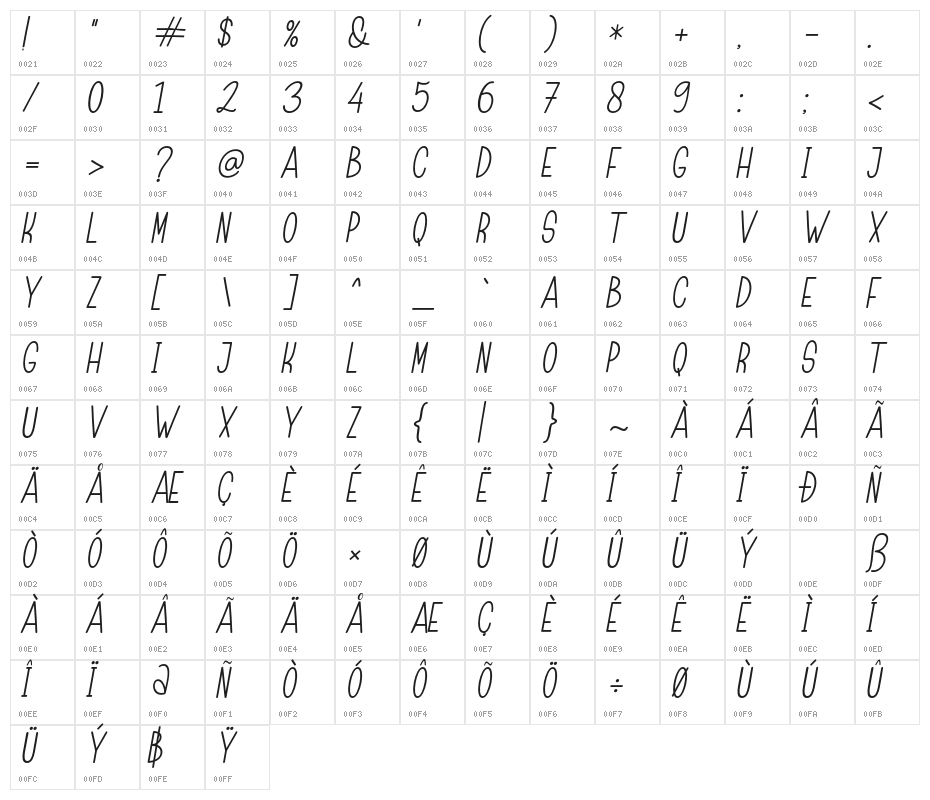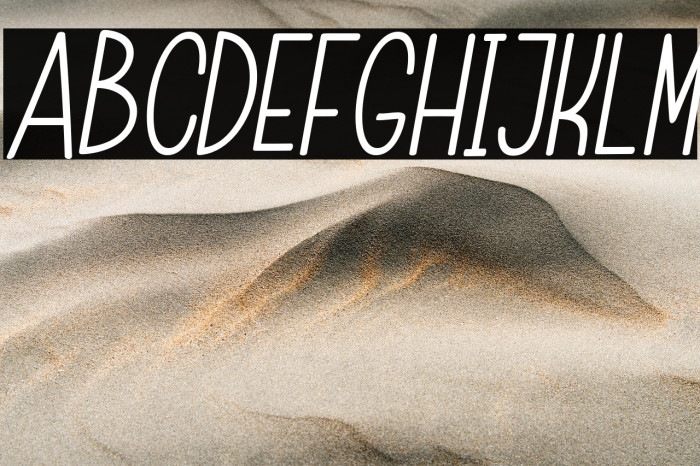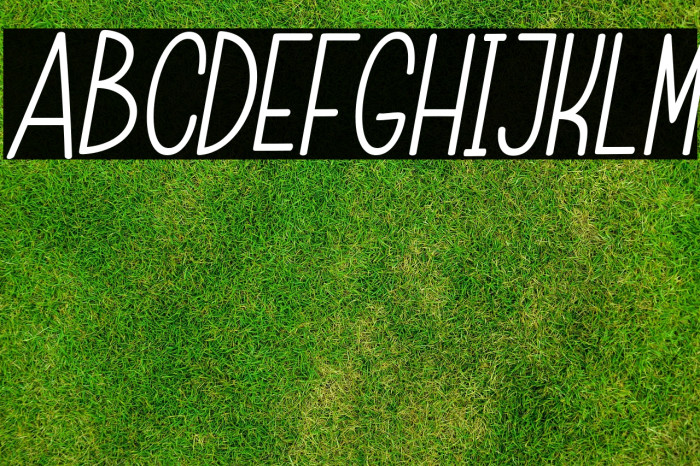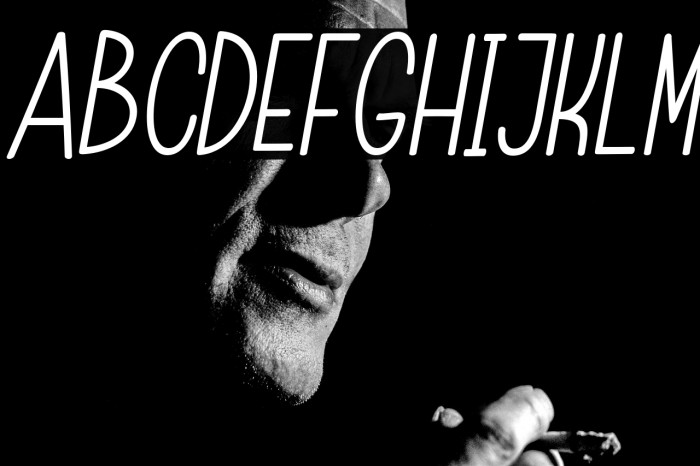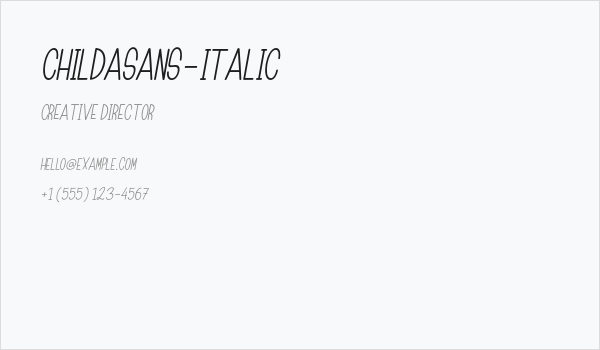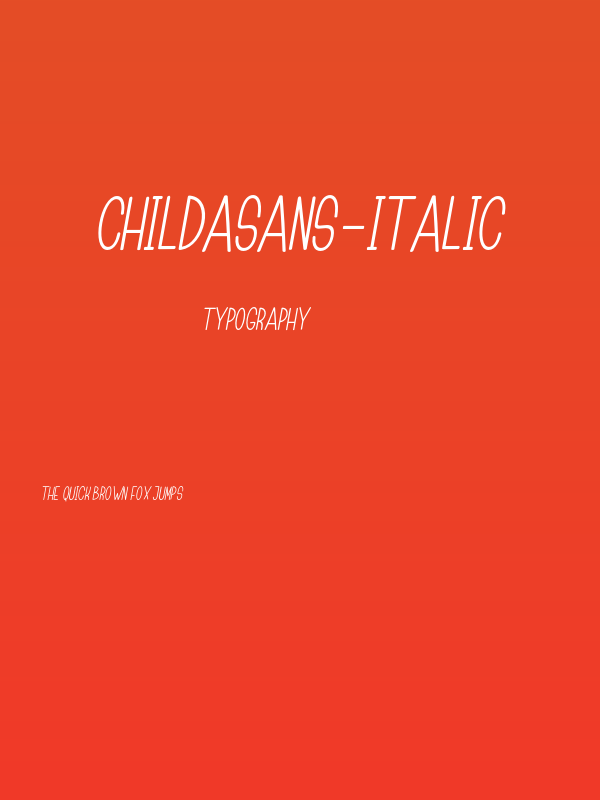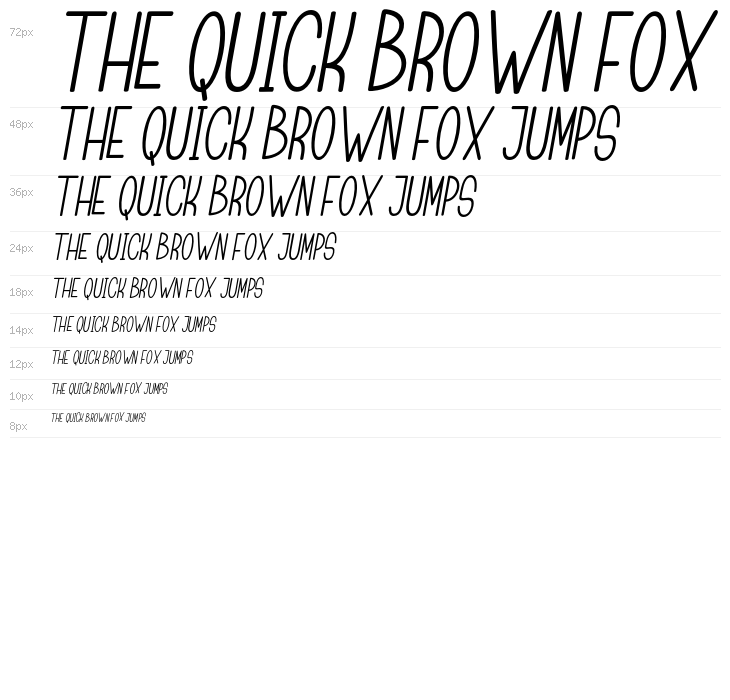
ChildaSans-Italic Font
ChildaSans-Italic Description
This font features a playful and informal style with a handwritten appearance. The characters are slightly slanted, giving it an italicized look, while maintaining a consistent stroke width throughout. The letters are tall and narrow, with rounded edges that add a friendly and approachable feel. The numbers and special characters follow the same design principles, ensuring uniformity across the typeface. Its casual yet clear design makes it suitable for a variety of creative projects.
| Proposed Projects | Ideal for greeting cards, children's books, informal invitations, and playful branding. |